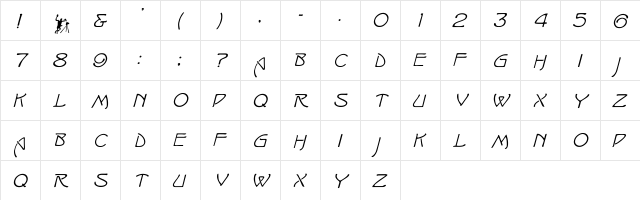
Isadora Italic Italic
Design Context for Isadora Italic Typeface
Isadora Italic is a composed and adaptable typeface that performs quietly and consistently across a wide range of design contexts. The slanted form adds forward momentum and visual energy.